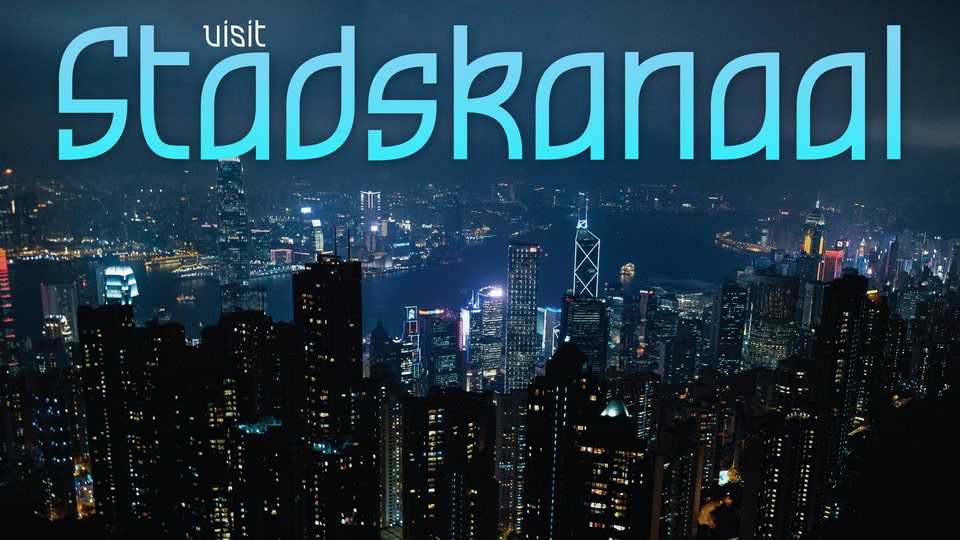
Download Greenwashing Machine font, a geometric display typeface with characters based on a leaf shape. Inspired by an organic hippy style, the font is perfect for green companies and vegan products.
Designer: Tup Wanders